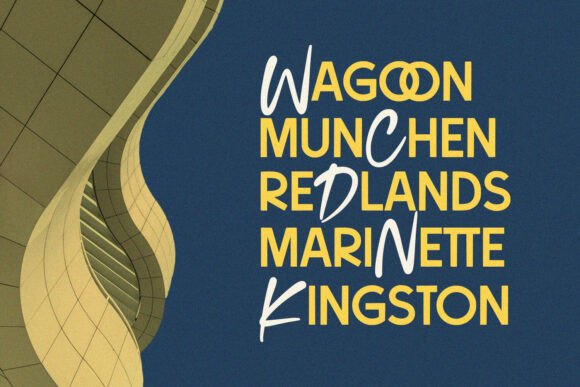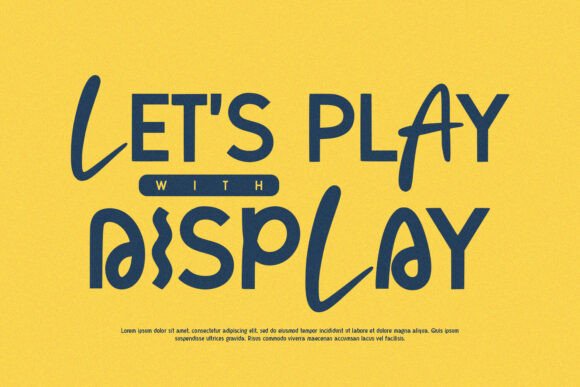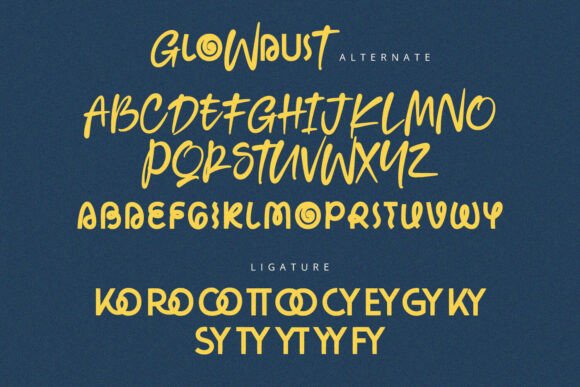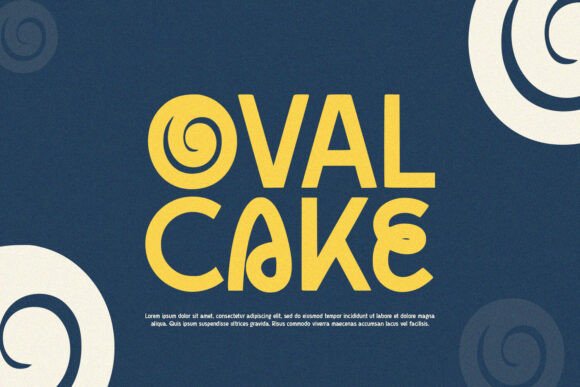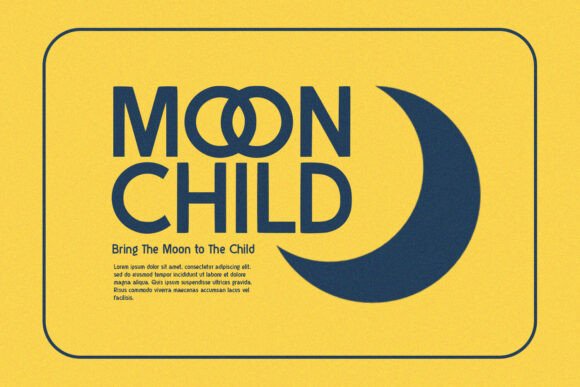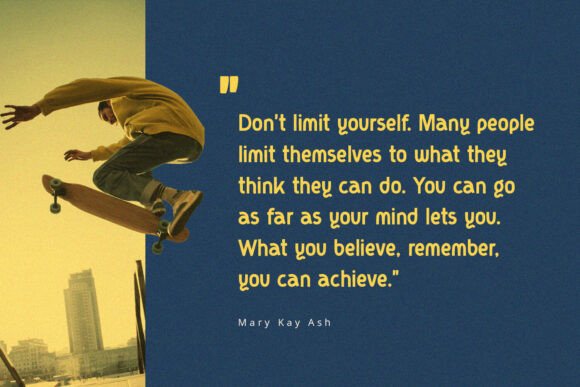
Introducing Glowdust Font: The Modern and Playful Display Sans Serif
In the world of typography, fonts play a crucial role in conveying the tone and personality of a brand or design project. For designers and crafters looking for a modern and playful feel, Glowdust Font is an excellent choice. This display sans serif font is perfect for a wide range of applications, from branding and logo design to lettering, packaging, and more.
What is Glowdust Font?
Glowdust Font is a display sans serif font designed to add a touch of modernity and playfulness to any design project. Its clean lines, rounded edges, and subtle curves make it an ideal choice for designers looking to create a fresh and youthful look. The font’s versatility allows it to be used in various contexts, from digital designs to print materials.
Key Features of Glowdust Font
- Modern and Playful Feel: Glowdust Font boasts a modern and playful aesthetic, making it perfect for designs that require a fresh and youthful look.
- Display Sans Serif: The font’s sans serif design ensures that it remains clean and legible, even at large font sizes.
- Versatile: Glowdust Font can be used in a wide range of applications, from branding and logo design to lettering, packaging, and more.
Use Cases for Glowdust Font
Glowdust Font is an excellent choice for various design projects, including:
- Branding: Create a lasting impression with a modern and playful brand identity.
- Logo Design: Design a unique and memorable logo that stands out from the crowd.
- Lettering: Add a touch of personality to your lettering projects with Glowdust Font’s playful feel.
- Logotype: Create a custom logotype that reflects your brand’s personality.
- Clothing: Use Glowdust Font on clothing, such as t-shirts, hoodies, and hats, to add a modern touch.
- Posters and Magazines: Create eye-catching posters and magazine covers with Glowdust Font’s bold and playful design.
- Packaging: Stand out on store shelves with custom packaging that features Glowdust Font.
- Shopping Bags: Add a touch of personality to shopping bags and make them more memorable.
- T-Shirts and Apparel: Design custom apparel with Glowdust Font for a unique and modern look.
- Book Covers: Create eye-catching book covers that grab attention with Glowdust Font.
- Photography: Use Glowdust Font to add a modern touch to photography projects, such as photo albums and portfolios.
- Special Events: Create custom designs for special events, such as weddings, conferences, and festivals, with Glowdust Font.
Why Choose Glowdust Font?
Glowdust Font offers several benefits that make it an excellent choice for designers and crafters:
- Unique and Memorable: Glowdust Font’s modern and playful design ensures that your designs stand out from the crowd.
- Versatile: The font’s versatility allows it to be used in various contexts, from digital designs to print materials.
- Easy to Read: Glowdust Font’s clean lines and sans serif design make it easy to read, even at large font sizes.
Glowdust Font is an excellent choice for designers and crafters looking for a modern and playful display sans serif font. Its versatility, unique design, and ease of readability make it perfect for a wide range of applications. Whether you’re working on branding, logo design, lettering, or packaging, Glowdust Font is sure to add a touch of personality to your designs.